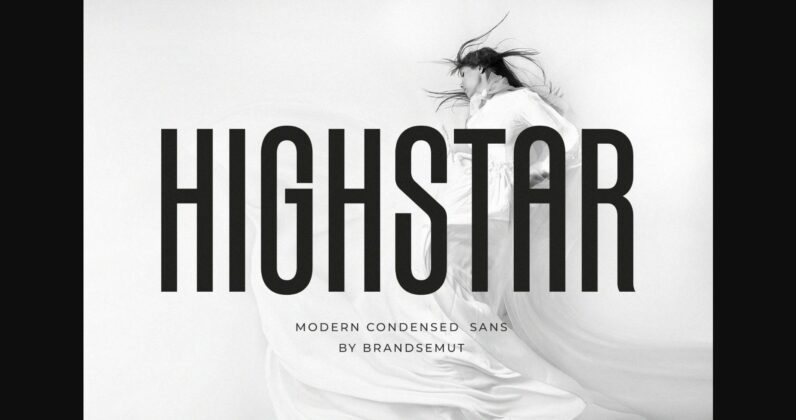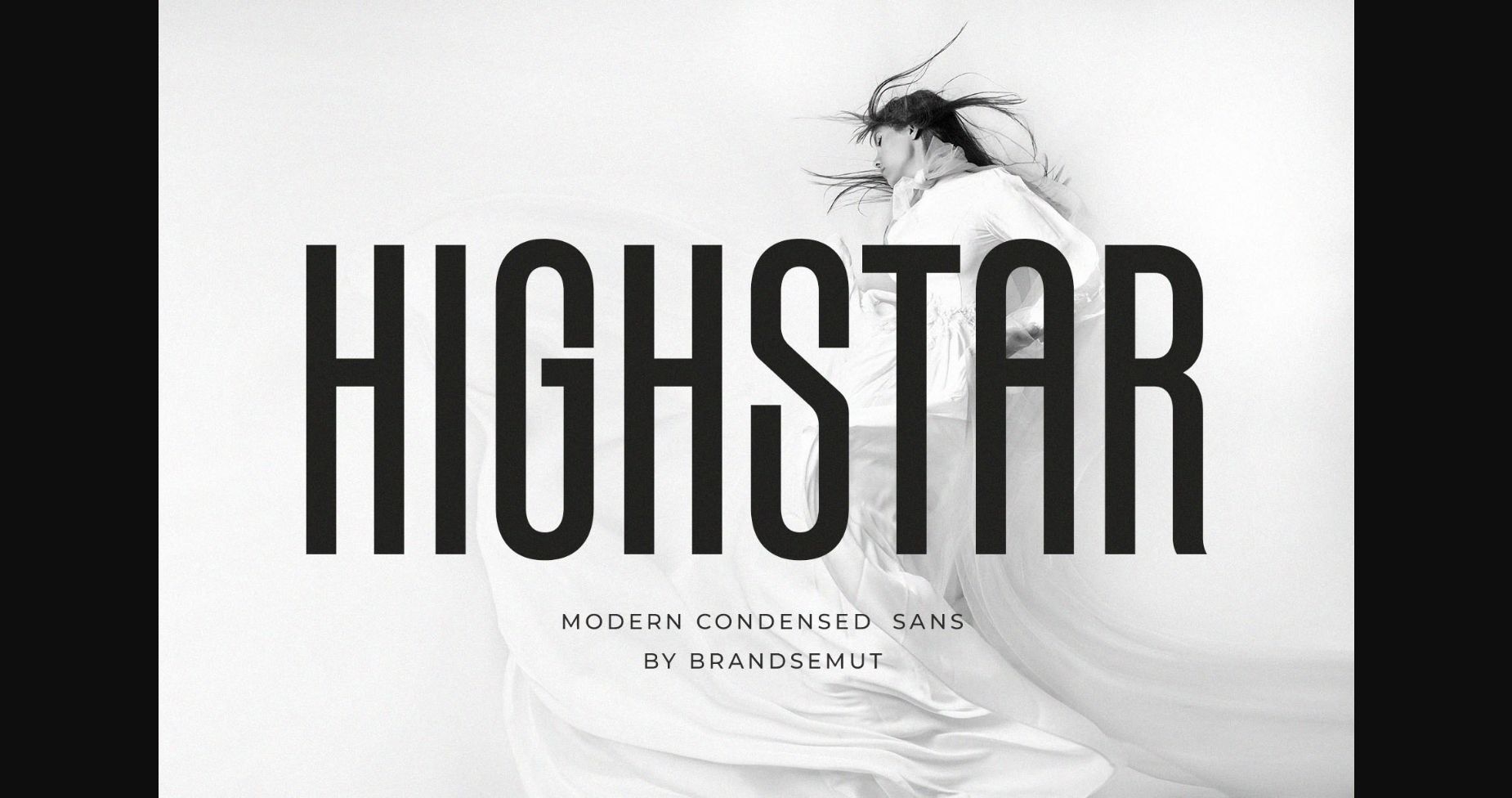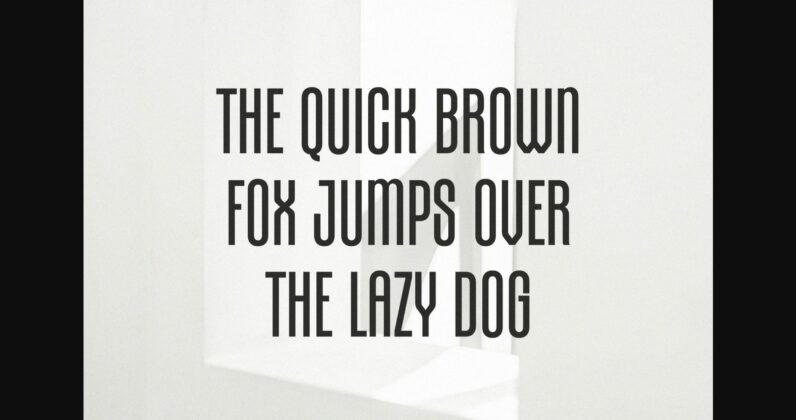
About Highstar Font
Introducing Highstar Modern Condensed Sans
Highstar is a modern and simple font, best used as a display for headings, logos, branding, magazines, product packaging, and invitations. Highstar comes with clean lines and smooth curves giving any project an extra touch of class.